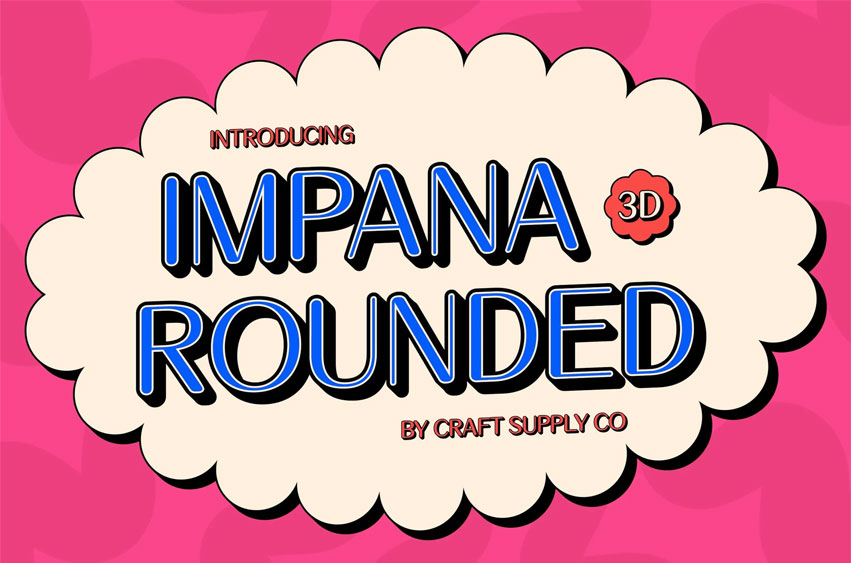
Impana Rounded Font
Impana Rounded Font Minimalist Rounded Design with a Refined Aesthetic. Impana Rounded 3D is a modern sans-serif font that brings together clean lines, gentle curves, and a minimalist approach. The rounded terminals soften the overall structure, giving the typeface a warm and approachable character while preserving a sleek and professional appearance. Its geometric balance ensures clarity and elegance across various design formats.
Subtle 3D Effect for Visual Engagement The font is enhanced with a tasteful 3D effect that adds a sense of depth and modernity without overpowering its clean design. This dimensional touch gives each character a sculpted feel, making the text more dynamic and visually engaging while maintaining simplicity and legibility.
Perfect Balance of Friendly and Professional. This rounded font offers the perfect harmony between a friendly, approachable tone and a polished, corporate-ready presence. Its modern yet soft style makes it highly versatile, appealing to both premium brands and creative professionals looking for a font that’s as functional as it is beautiful.
Ideal for Premium and Futuristic Visuals. Whether used for elegant branding, clean digital interfaces, editorial layouts, or stylish promotional designs, Impana Rounded 3D stands out with subtle sophistication. It’s ability to project modern refinement with a soft futuristic touch.